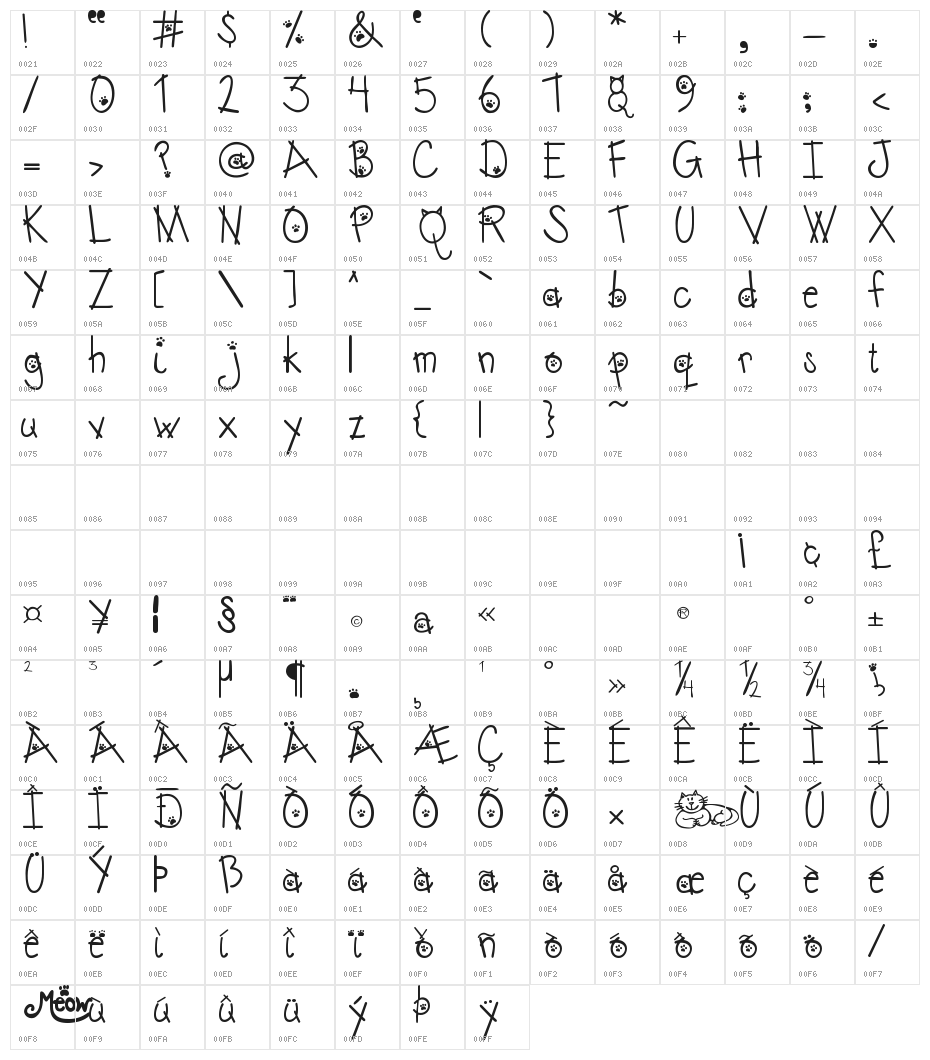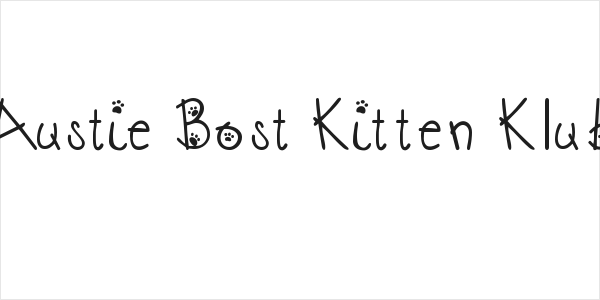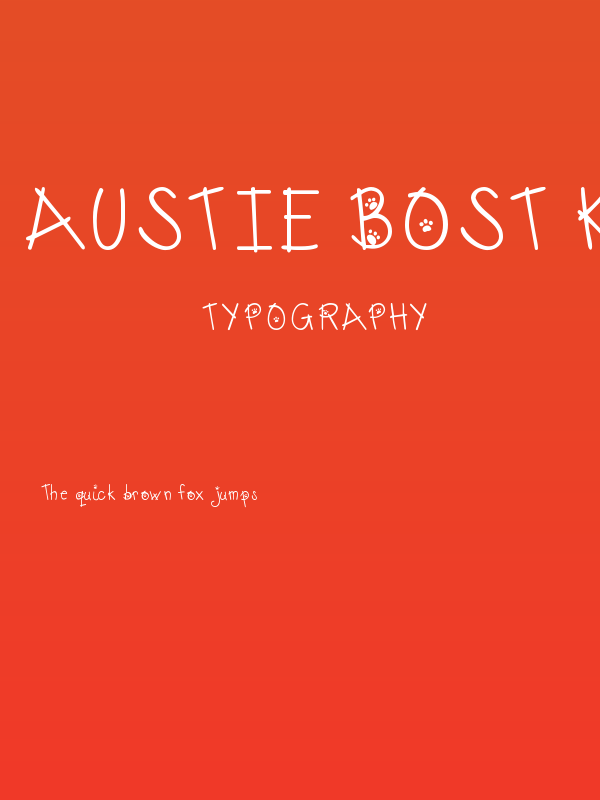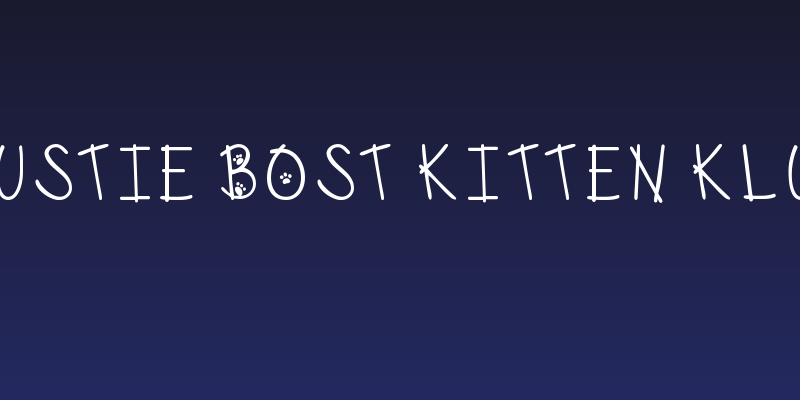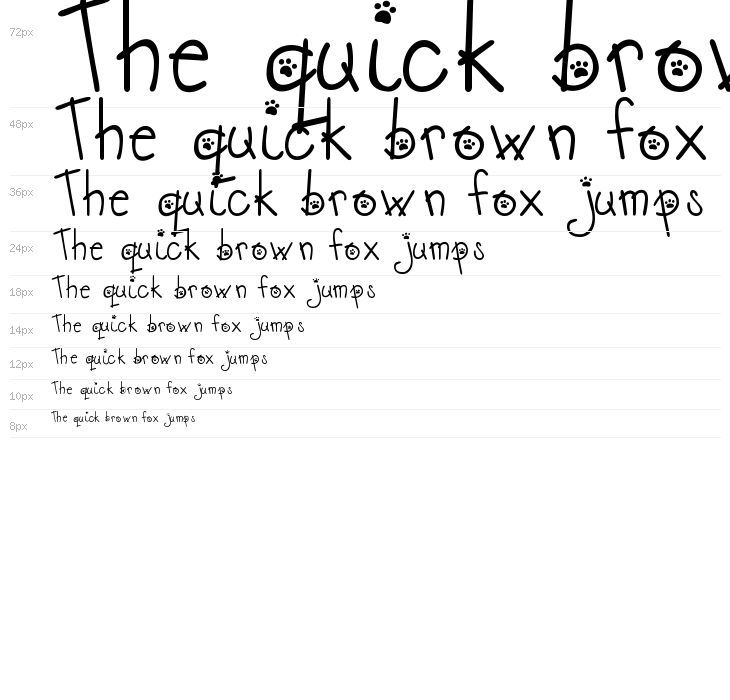
Austie Bost Kitten Klub Font
Austie Bost Kitten Klub Description
This playful and whimsical font features charming cat-themed embellishments, with paw prints and cat faces integrated into the characters. The letters are slightly irregular, giving a hand-drawn, casual feel. The uppercase letters are tall and narrow, while the lowercase letters maintain a consistent height, adding to the quirky aesthetic. Numbers and special characters also carry the same playful elements, making this font ideal for projects that require a fun and lighthearted touch.
| Overall Style | Whimsical, Playful |
| Proposed Projects | Ideal for children's books, playful branding, pet-related products, greeting cards, and creative posters. |